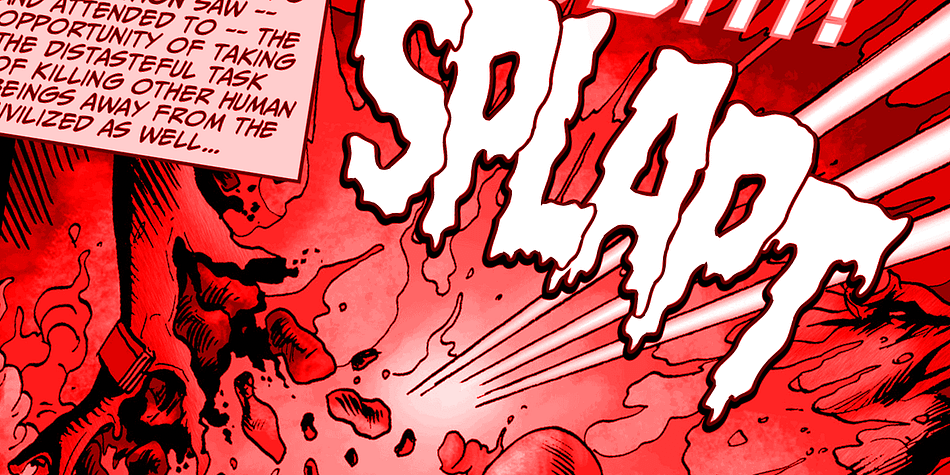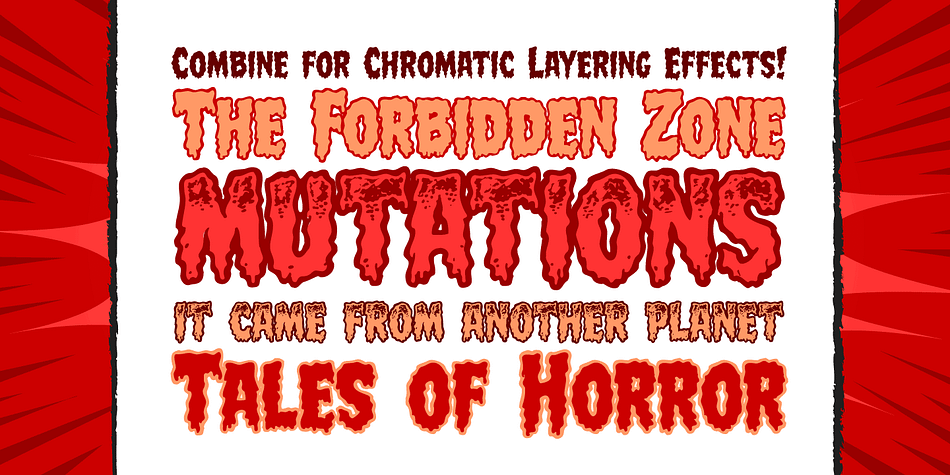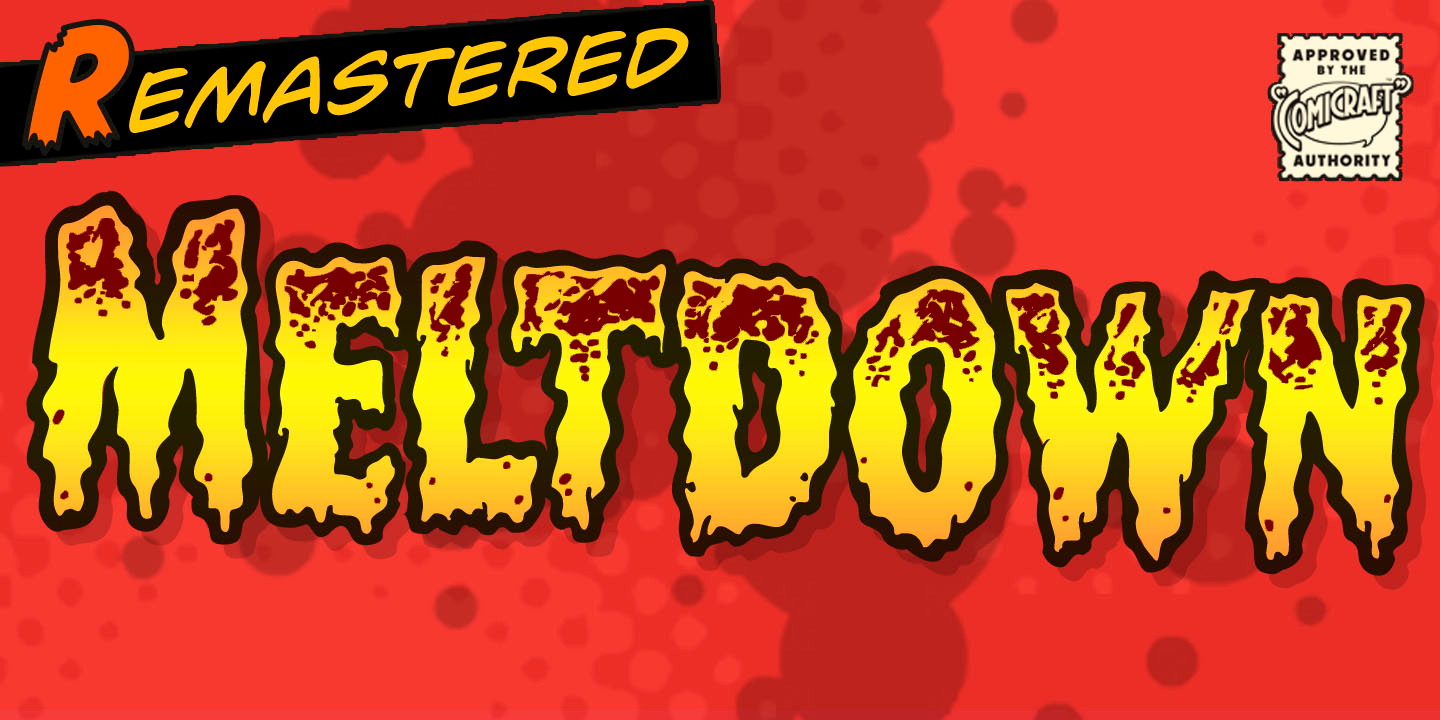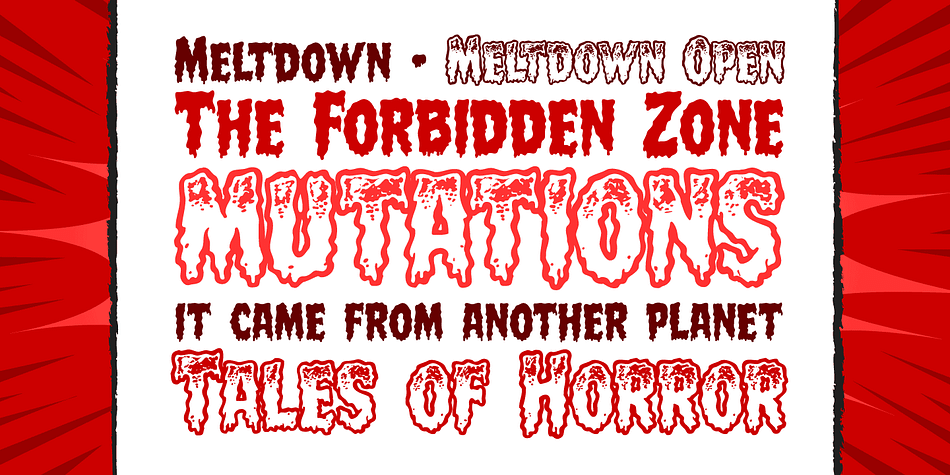
Designed by Richard Starkings and John Roshell, Meltdown is a comic, grunge and novelty font family. This typeface has two styles and was published by Comicraft.
Misshapen Muck Monster Mutations are on the loose… Their creepy hyper-irradiated bodies have emerged from the blasted desolate wastes of The Forbidden Zone! Could this be Doomsday… or did we just leave one of our typefaces on the radiator? Either way, Meltdown is the perfect font for monstrous inhuman atrocities everywhere.